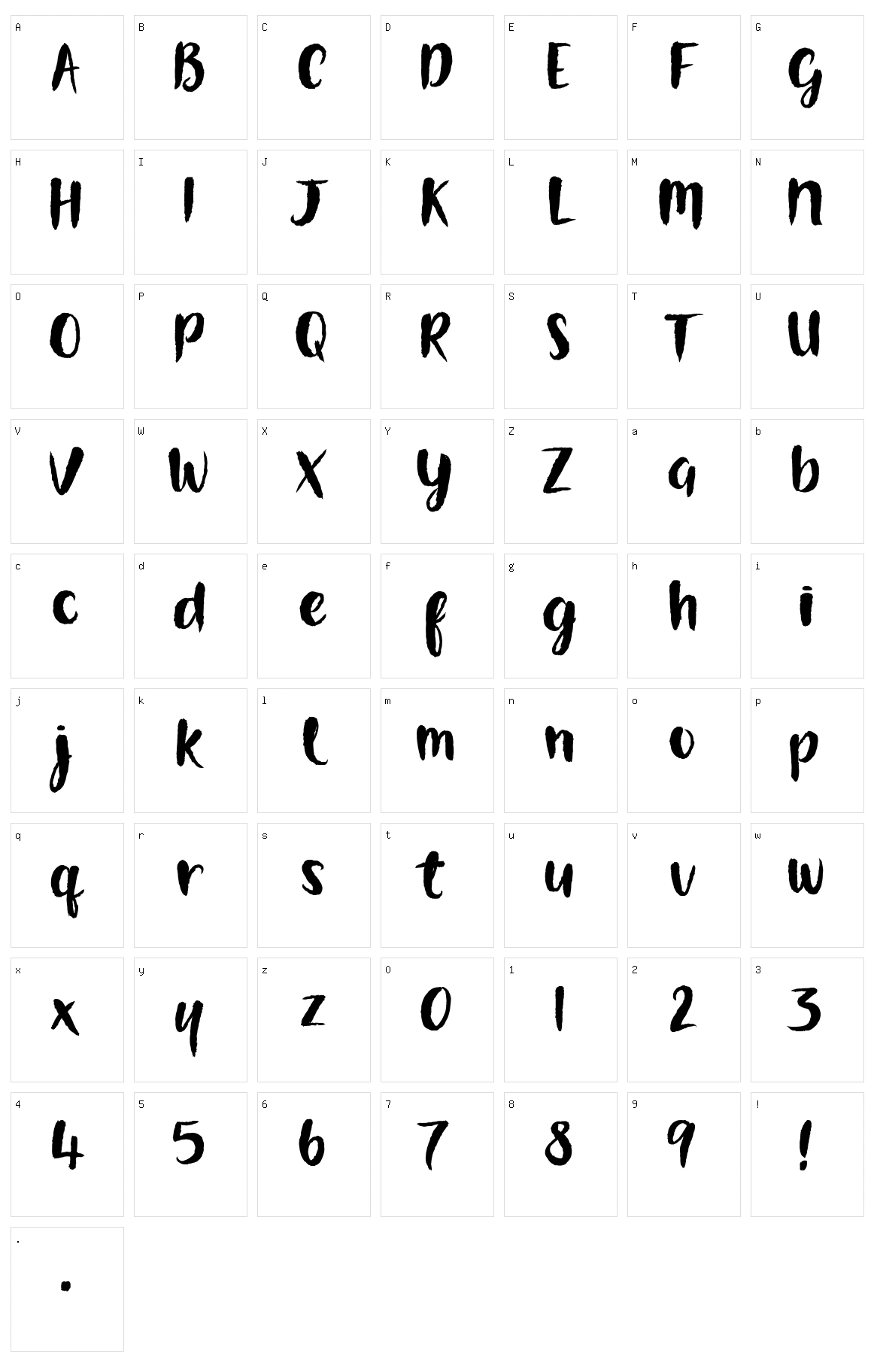
The free font Gorgeously World is carefully designed by CconceptLab, showcasing a thoughtful balance of creativity and usability and falls under the Script font style. When you download the ZIP file, it contains only 96.11 KB of font files, making it lightweight and quick to download. Please review the license details below to understand permitted usage and distribution rights. If license information is not available, we recommend using this font for personal projects only or contacting the author directly for commercial usage permissions.